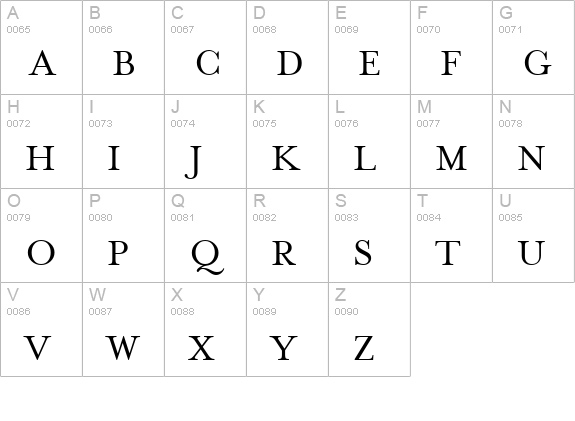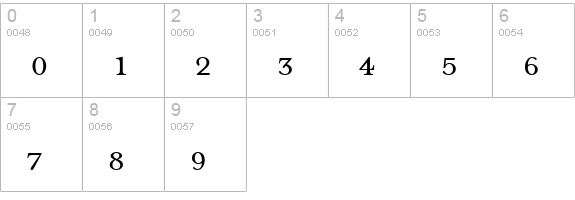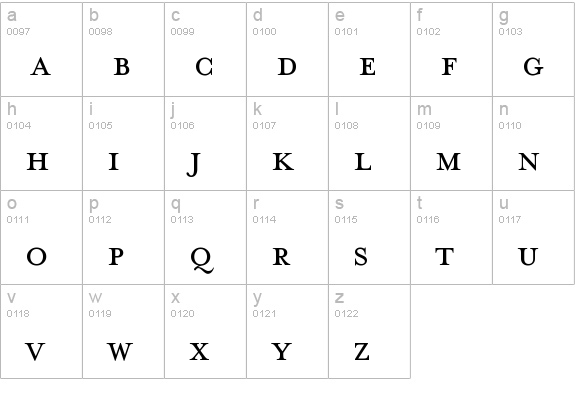
MrsEavesSmallCaps Regular is the standard, neutral variant in the MrsEavesSmallCaps typeface family \xE2\x80\x94 well suited to general body text, paragraphs, and standard typographic work.
MrsEavesSmallCaps Regular is a timeless and elegant font that exudes sophistication and class. This classic typeface features delicate serifs and small caps, making it perfect for adding a touch of refinement to any design project. Its clean lines and balanced proportions make it highly readable and versatile for a wide range of applications. Best of all, MrsEavesSmallCaps Regular is available for free download at FontsMarket.com. Whether you're working on a professional project or simply looking to elevate your personal branding, this font is a fantastic choice that won't cost you a penny. Download MrsEavesSmallCaps Regular today and add a touch of timeless elegance to your next design endeavor.